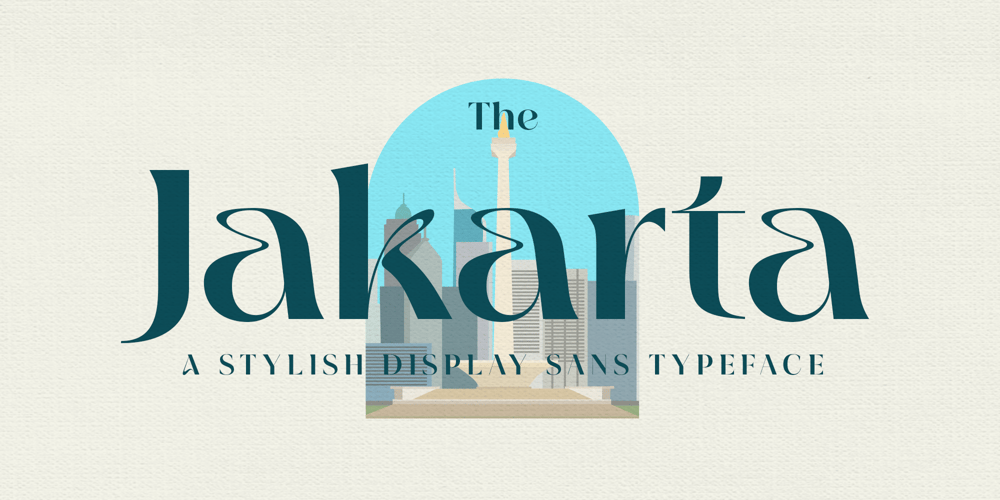
The Jakarta
The Jakarta font
The Jakarta Font Family was designed by Faldy Kudo and published by XdCreative. The Jakarta contains 2 styles and family package options. Say hi to “The Jakarta” a stylish display sans typeface is the latest collection from @faldykudo”The Jakarta” basic technical and anatomy comes from the genetics of the “Magnify” family (Geometric classification of typefaces) with several stroke modifications and a combination smooth curves for a minimalist, elegant and modern sans serif.The Jakarta is perfect for the logo, product, headline or any of display design.The Jakarta has a complete characters A-Z, a-z (including stylistic Alternates), Numeral, Punctuations, and standard ligature.thanks, hope you would like and accept “The Jakarta” as part of your family.thank you in advance